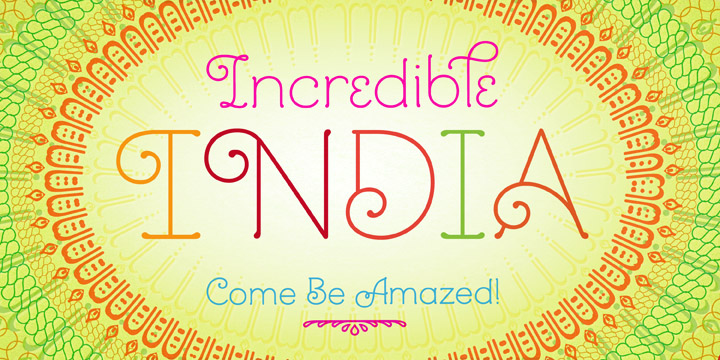
Mandevilla
Mandevilla is a retro font family. This typeface has three styles and was published by Laura Worthington.
Creation of this typeface for titling, display, and logos was inspired by my exploration and drawing of forms found in nature.
Refined, quiet and elegant, yet quirky enough to employ slim filaments that somehow are not faint of heart, Mandevilla is named for the verdant tropical vine.
The sturdy plant has firm footing in the soil, then climbs, curving around trees, stretching toward the light, bridging earth and sky.
Mandevilla began as a sans-serif, but its footing, in the form of tiny round lachrymal terminals, roots it and transforms it into a semi-serif.
From there the tendrils spiral—especially in the uppercase letters, with their echoes of nautilus shells we held to our ears to hear the ocean—and embrace slender, airy ascenders that tenderly but determinedly rise heavenward.
As I sketched, I played with curliques, beginning with the uppercase A.
Creation of this typeface for titling, display, and logos was inspired by my exploration and drawing of forms found in nature. Refined, quiet and elegant, yet quirky enough to employ slim filaments that somehow are not faint of heart, Mandevilla is named for the verdant tropical vine. The sturdy plant has firm footing in the soil, then climbs, curving around trees, stretching toward the light, bridging earth and sky.
Mandevilla began as a sans-serif, but its footing, in the form of tiny round lachrymal terminals, roots it and transforms it into a semi-serif. From there the tendrils spiral—especially in the uppercase letters, with their echoes of nautilus shells we held to our ears to hear the ocean—and embrace slender, airy ascenders that tenderly but determinedly rise heavenward.
As I sketched, I played with curliques, beginning with the uppercase A. My process usually begins with lowercase letters, but I was fascinated by the spirals and the references to nature, and how that swirl swept around the A, B, and Q, giving each a delicately different personality, within a softly stated whole. The sweep of my pencil both interrupted and completed the diagonal stems of the A and the K, and this idiosyncrasy intrigued me. How would this theme work its way through the alphabet? When I was finished, I sensed spun sugar, or the vines of a delicate plant—and thus its name, Mandevilla.
From there, I moved to the lowercase letters, and sought simplicity to balance the embellishments in the uppercase letters. Round, open, friendly, warm, with just a whisper of the Art Deco period, they soften the more ornate letters yet confer a touch of clarity. Born as sans-serif shapes, their terminals now carry a hint of drops of dew, shifting them to semi-serifs.
ALTERNATES
Alternates are included to allow for versatility, so each design has your unique twist. While the Mandevilla default is decorative, the titling set is unadorned and non-stylized, yet still capturing the airiness of the typeface. Access them in the Open Type panel as Titling Alternates, as seen in the User’s Guide. They’re useful in some larger text settings or simply if the design calls for a more standard look.
Also included are a 3/4 size set, listed and found as small caps. Small caps are typically the size of a lowercase letter, but these 3/4 caps are about 80% of the height of the uppercase letters. They are useful for all uppercase settings—used together, they maintain a sense of a word shape because they are smaller and less ornamented than the initial cap and are serif-free.
A set of swashes offers both upper and lowercase variations, with an especially rich selection for each lowercase letter.